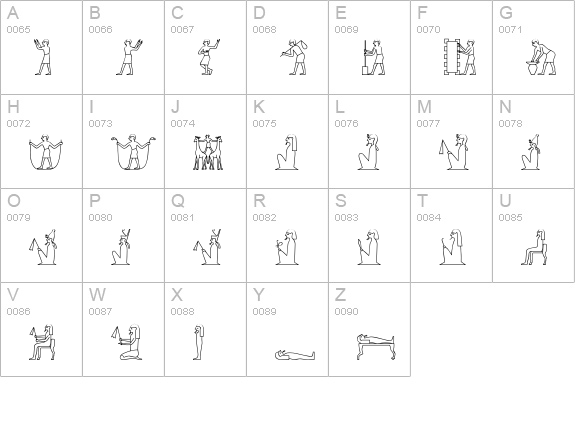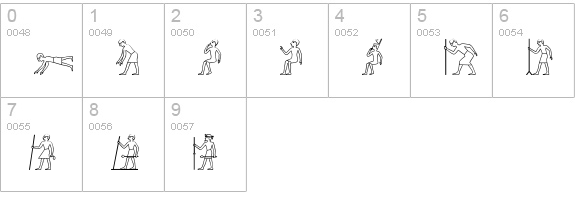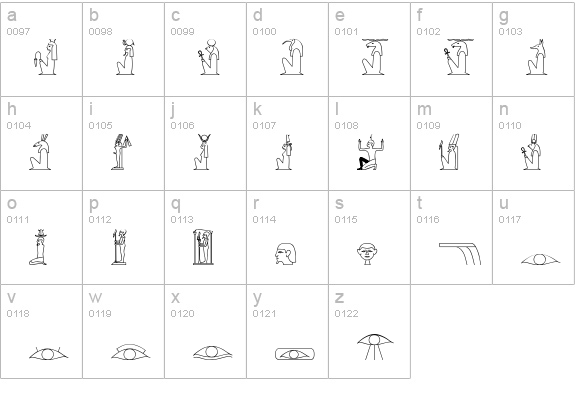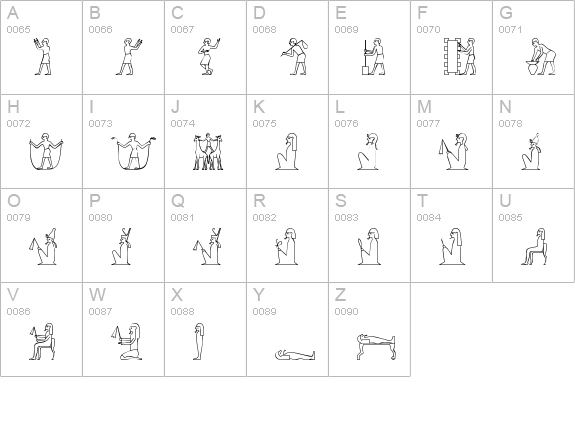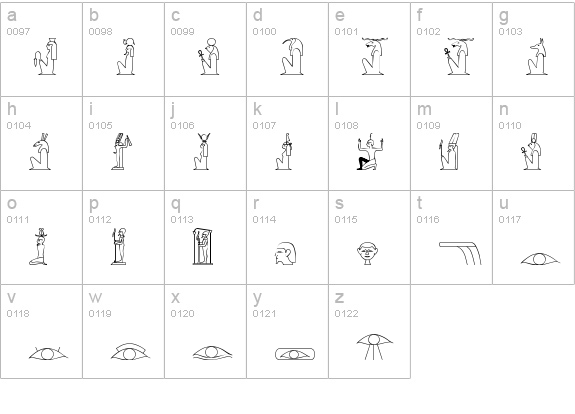
GlyphBasic A Font Details
Introducing GlyphBasic A, a versatile and modern font that is perfect for a wide range of design projects. With its clean lines and contemporary style, GlyphBasic A is sure to make your text stand out. This font is free to use for personal and commercial projects, making it a great choice for designers on a budget. You can easily download GlyphBasic A for free at FontsMarket.com, where you'll find a wide selection of high-quality fonts to enhance your creative work. Don't miss out on the opportunity to add GlyphBasic A to your font collection today!